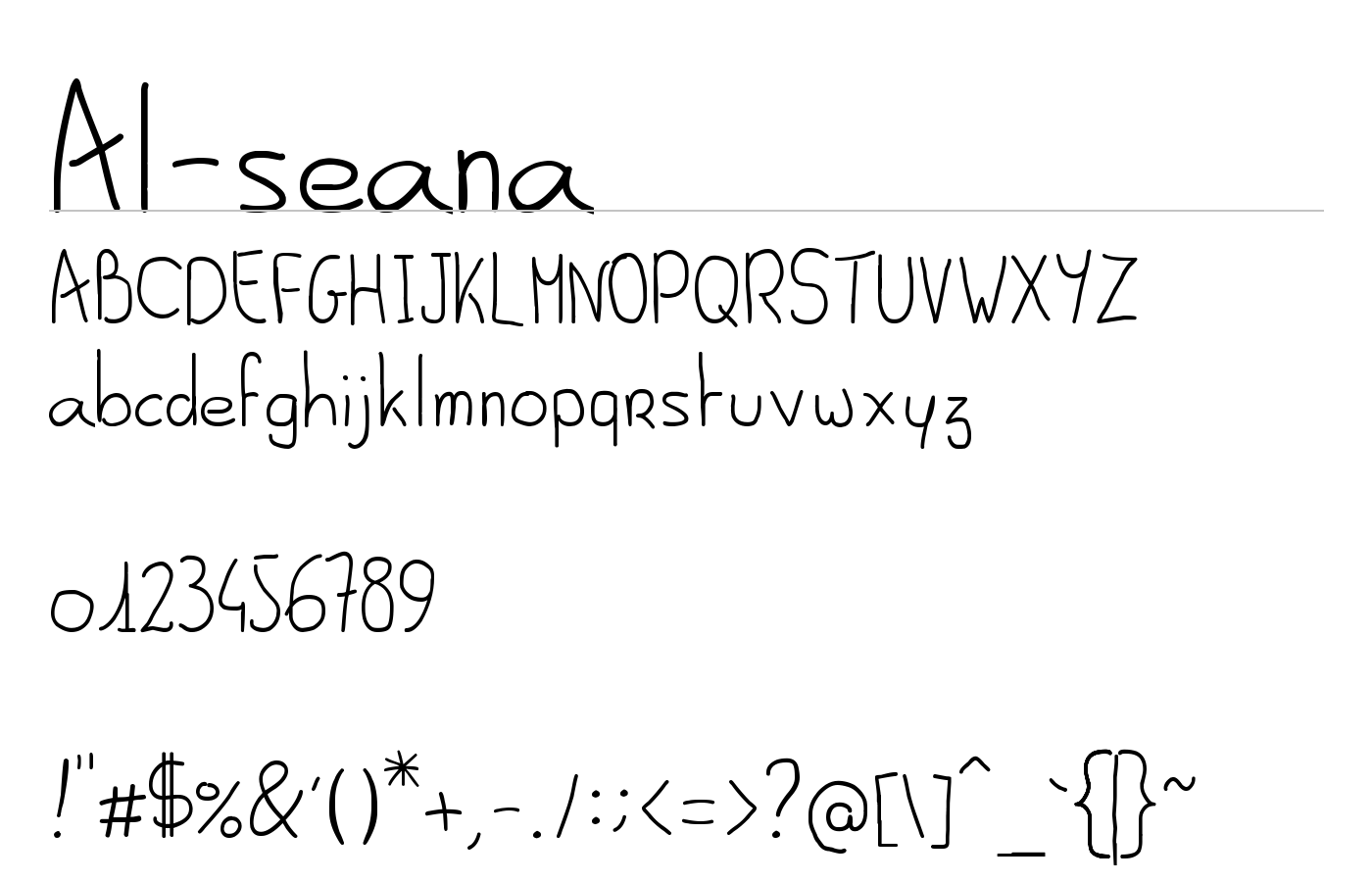
Al-seana is a playful, hand-drawn sans serif font characterized by its tall, narrow letterforms and irregular, slightly whimsical strokes. Its light weight and open spacing give it a casual, approachable feel, making it ideal for informal designs, creative projects, and youth-oriented branding that seeks a friendly and unique personality. This font works well in headlines, invitations, and digital content where a personal, handmade touch is desired.
Al-seana Font